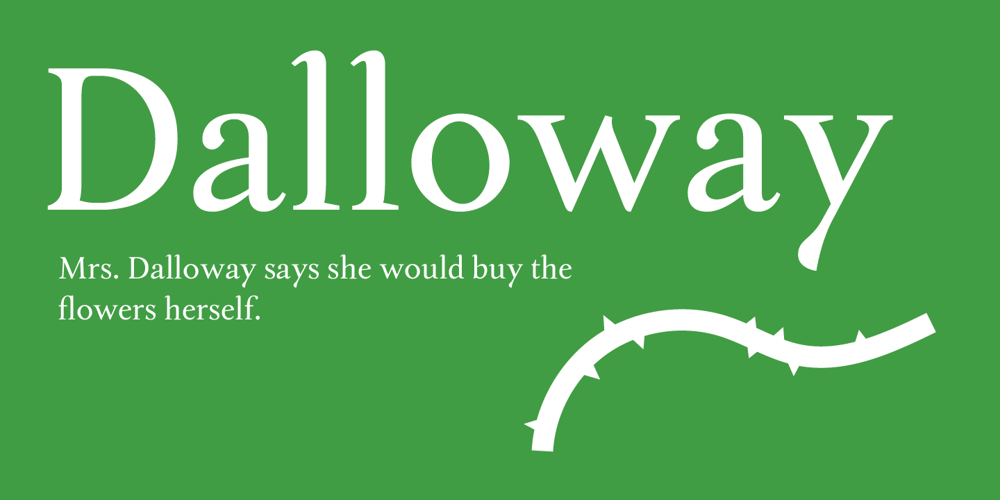
Dalloway Font Family was designed by Shuang Wu Wu and published by Shuang. Dalloway contains 1 styles and family package options. Inspiration of the typeface Dalloway comes from Virginia Woolf’s novel “Mrs. Dalloway”. Some calligraphic features are incorporated to add humanity to this typeface. Because Woolf’s writing style is very sentimental and personal, which somehow reminds me of the feeling of reading someone’s dairy. Some other features of this typeface takes inspiration from flowers and plants, which is another influence from the book. Flower appears in the first sentence of the novel and works as an important symbol throughout the whole story.